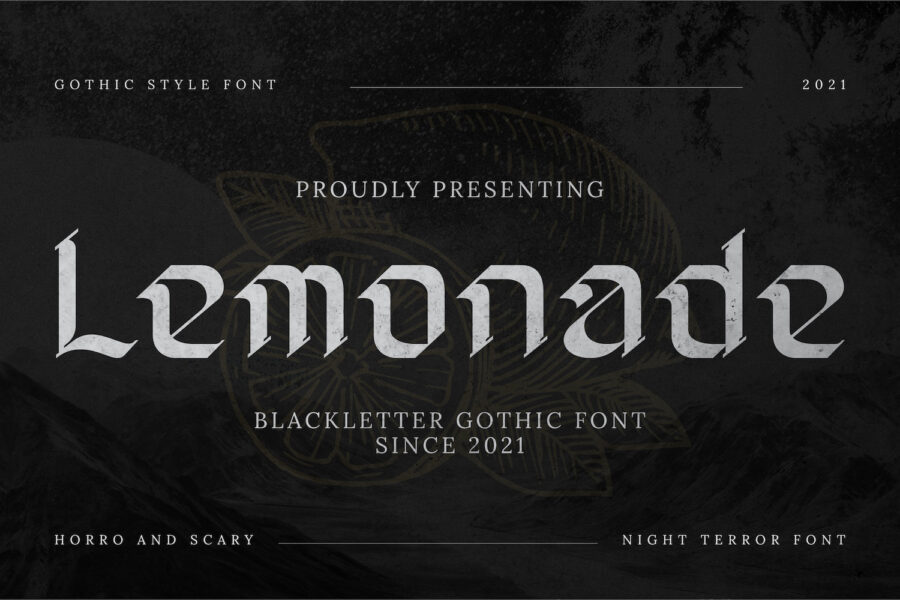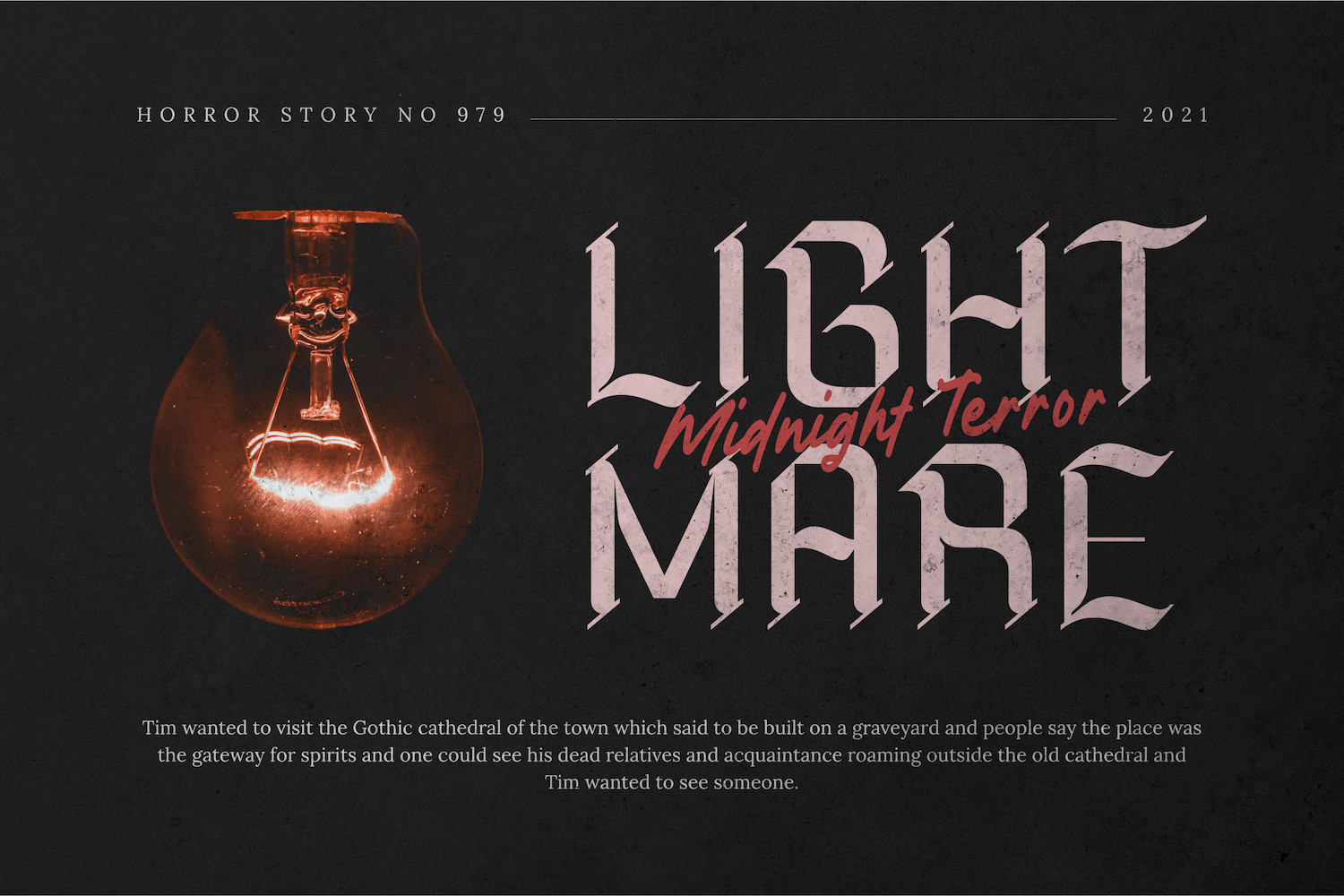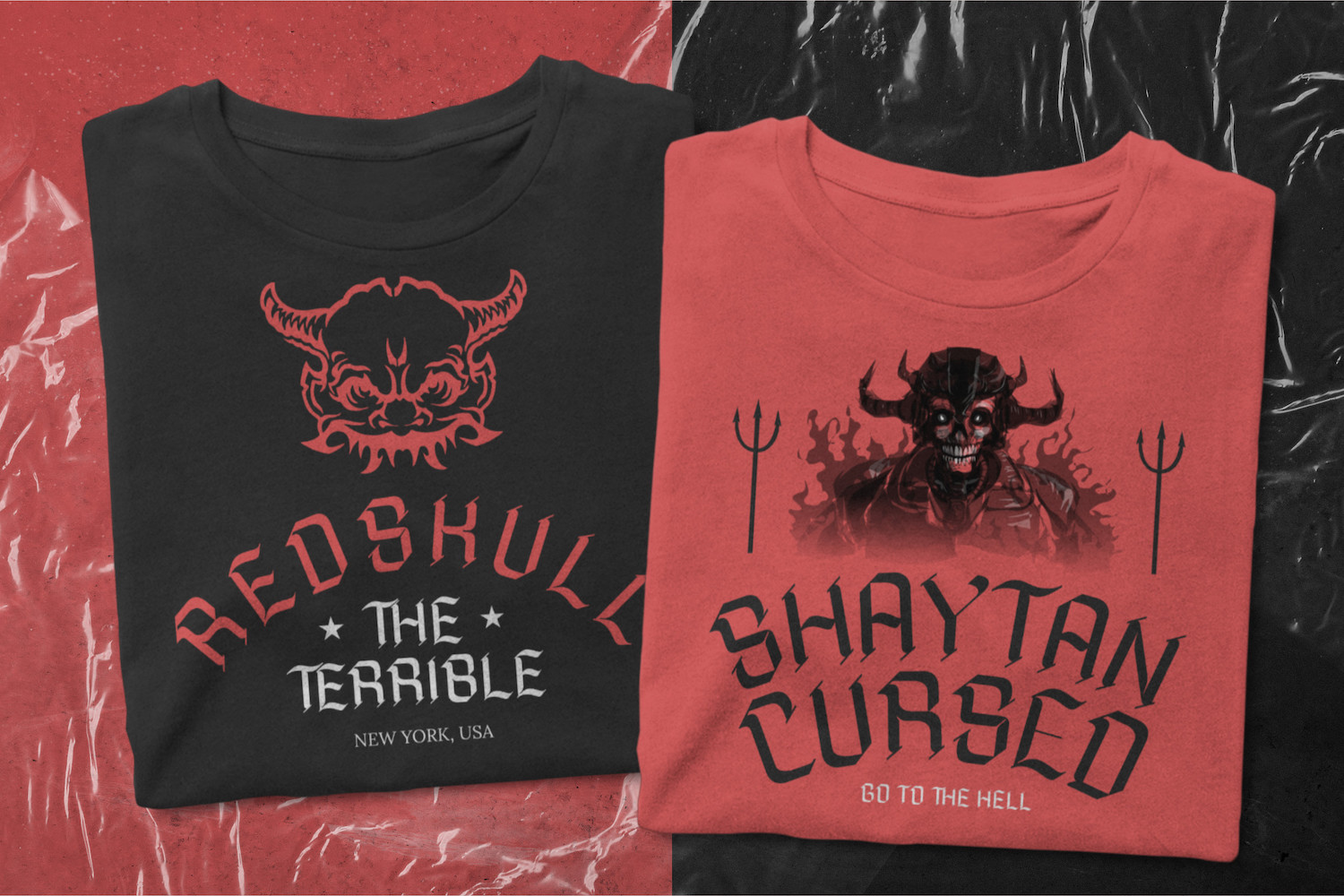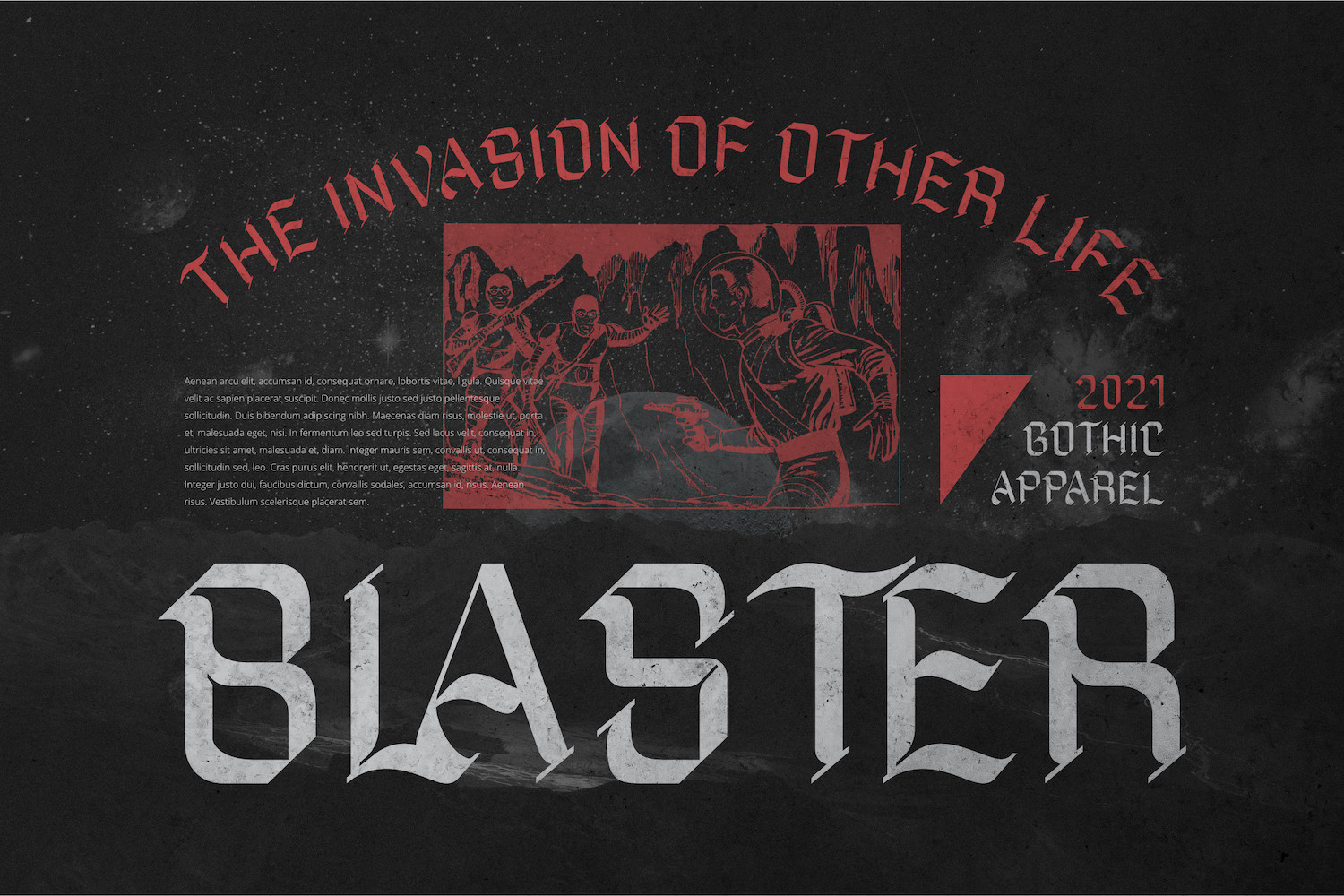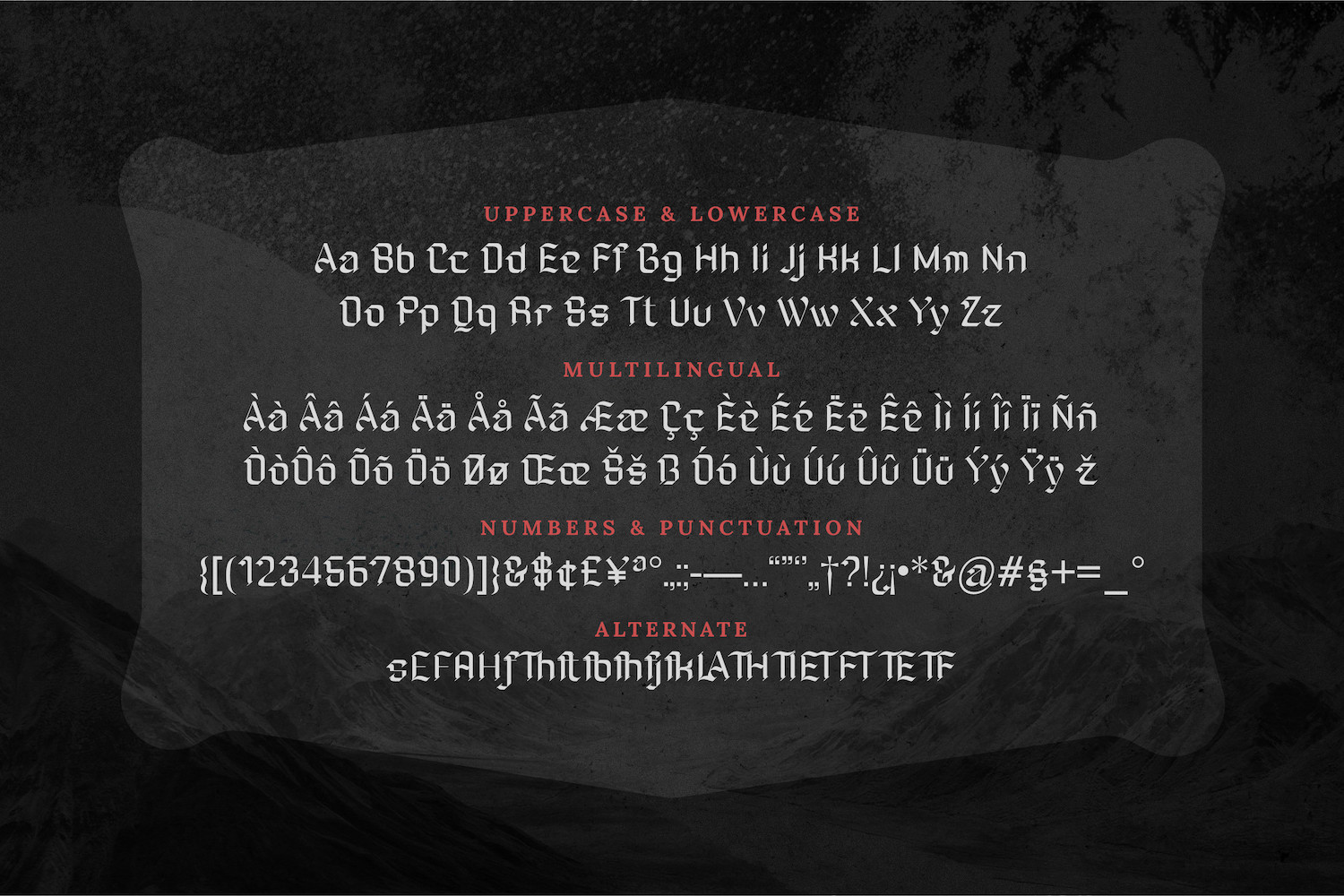
Lemonade is a gothic-style blackletter font that captures the essence of horror and medieval aesthetics. With its sharp, angular strokes and vintage texture, this font is ideal for album covers, apparel, dark-themed branding, and horror-themed visuals. Inspired by traditional European calligraphy and crafted for modern-day intensity, Lemonade stands out with its commanding presence and haunting elegance.
Equipped with uppercase, lowercase, punctuation, multilingual characters, and alternate letterforms, Lemonade offers versatility while maintaining its eerie charm. Whether you’re designing for gothic events, occult posters, or macabre merchandise, this font injects a bold, spine-chilling personality into every project.